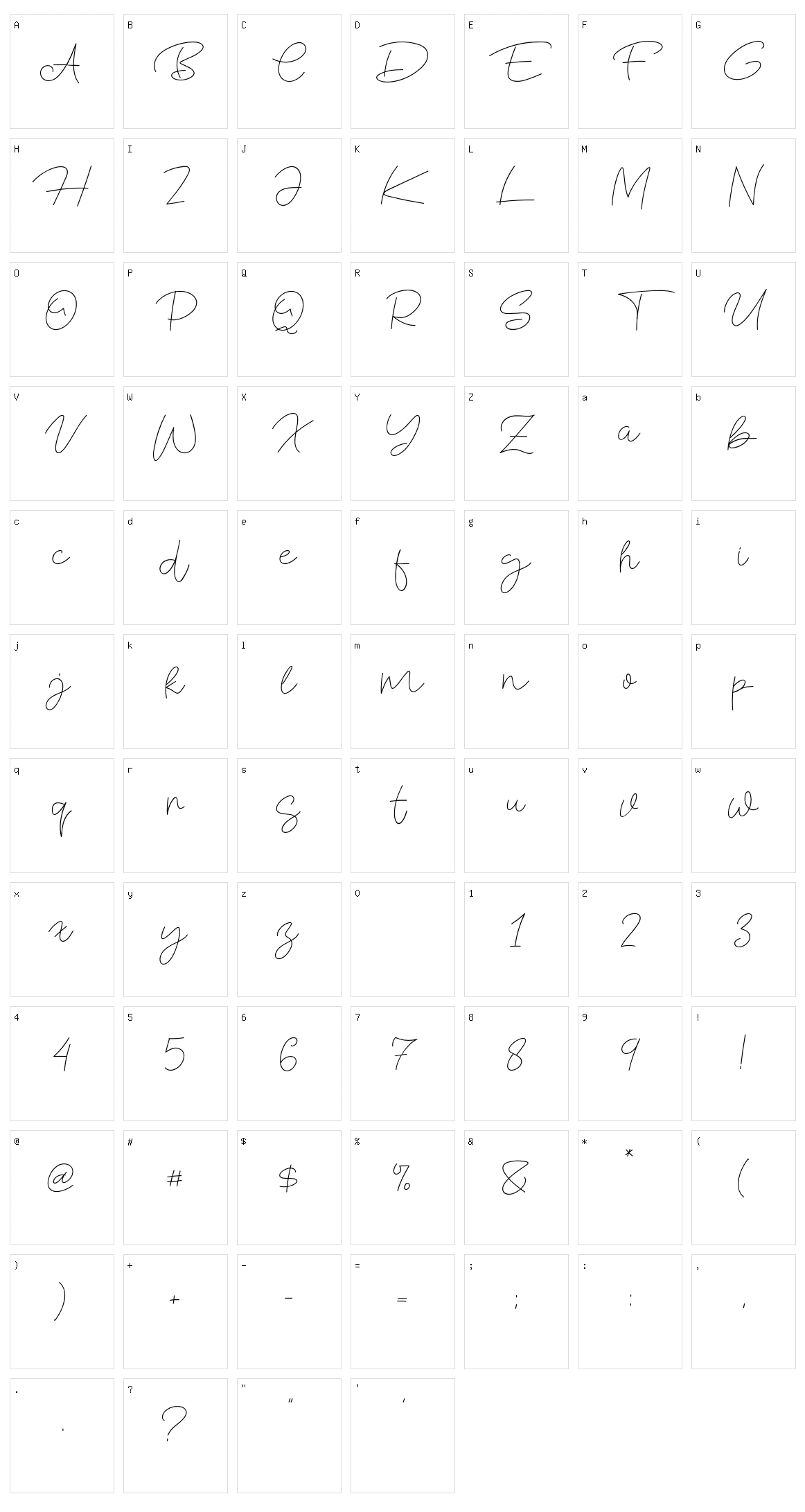
The free font Blue Fonte is carefully designed by Khurasan, showcasing a thoughtful balance of creativity and usability and falls under the Script font style. When you download the ZIP file, it contains only 1095.43 KB of font files, making it lightweight and quick to download. Please review the license details below to understand permitted usage and distribution rights. If license information is not available, we recommend using this font for personal projects only or contacting the author directly for commercial usage permissions.